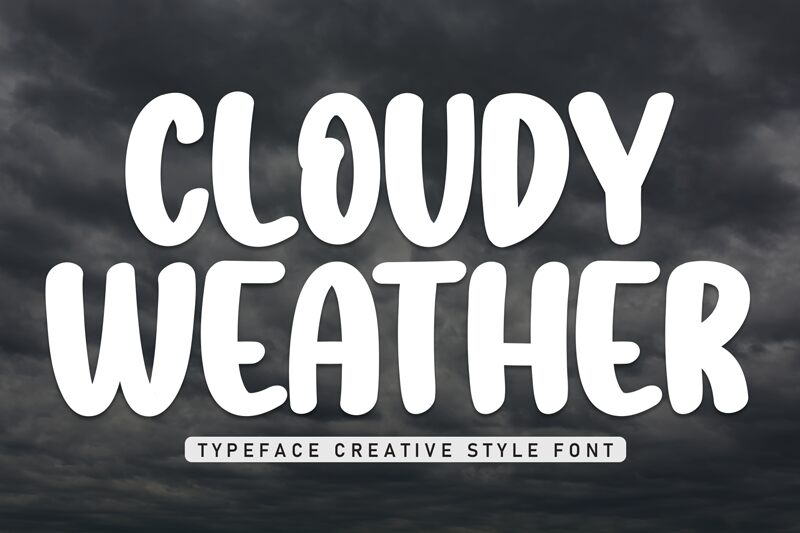
Cloudy Weather
Cloudy Weather font by Scratchones is a free cartoon display typeface. Its plump, cloud-like letters have rounded edges and a buoyant rhythm that feels hand-drawn without getting messy. The forms stack tightly yet read easily, giving headlines a soft, friendly thump—as if stamped with a squishy, inky sponge.
Using Cloudy Weather, you can brighten kids’ books, birthday invites, toy packaging, classroom posters, bake shop logos, and YouTube thumbnails. This free font shines at larger sizes with a touch of extra tracking for airy charm. For body copy or captions, pair it with a clean geometric sans to keep layouts crisp and readable.